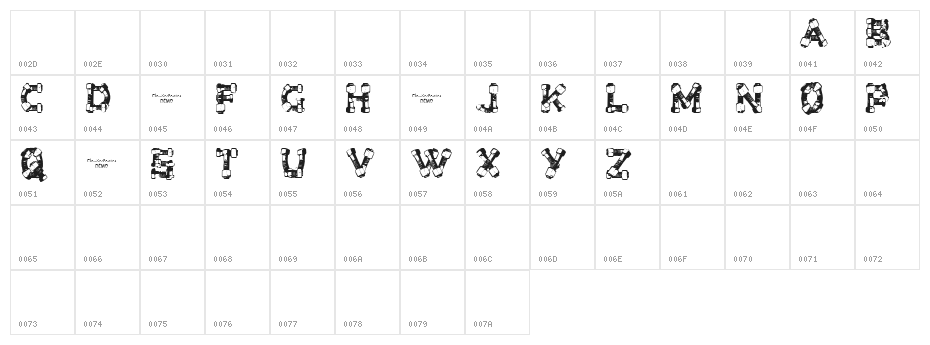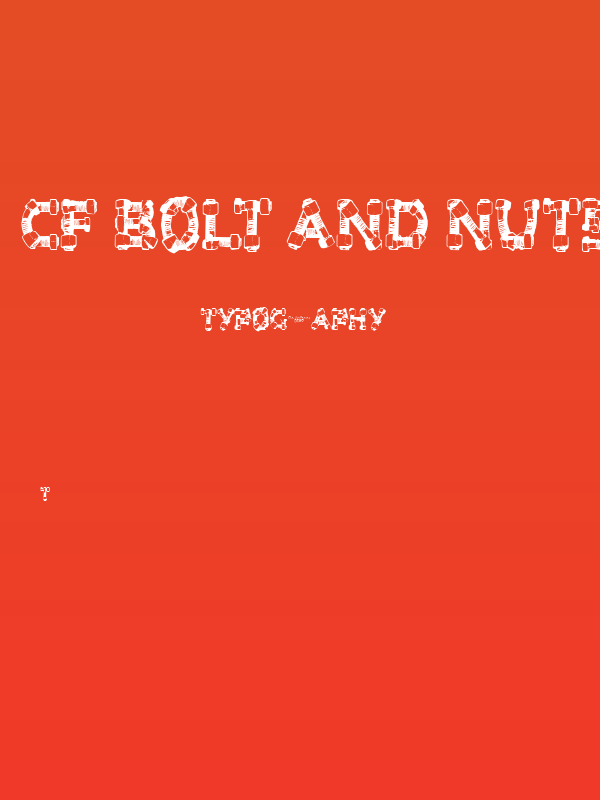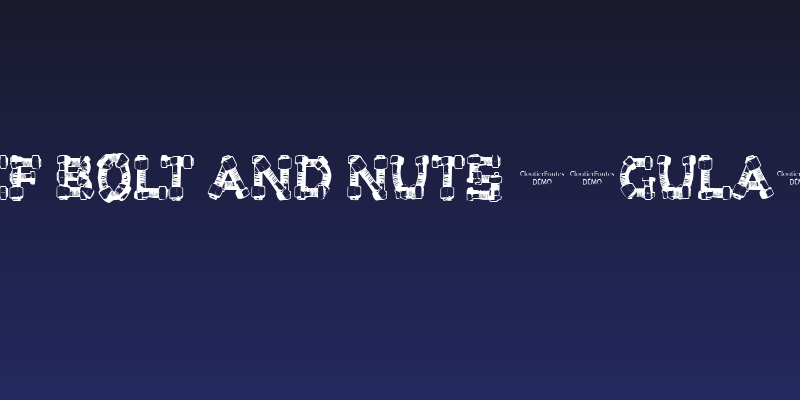
CF Bolt and Nuts Regular Font
This font features a unique and industrial design, where each letter is constructed using illustrations of bolts and nuts. The characters are bold and have a mechanical aesthetic, making them stand out with a three-dimensional appearance. The intricate detailing of the bolts and nuts adds a textured look, giving the font a rugged and robust feel. This design is highly decorative and unconventional, perfect for projects that require a strong industrial theme. The uppercase letters are particularly striking, with each character maintaining a consistent style that emphasizes the mechanical motif.
Proposed ProjectsIdeal for industrial-themed posters, mechanical event invitations, or branding for hardware stores.